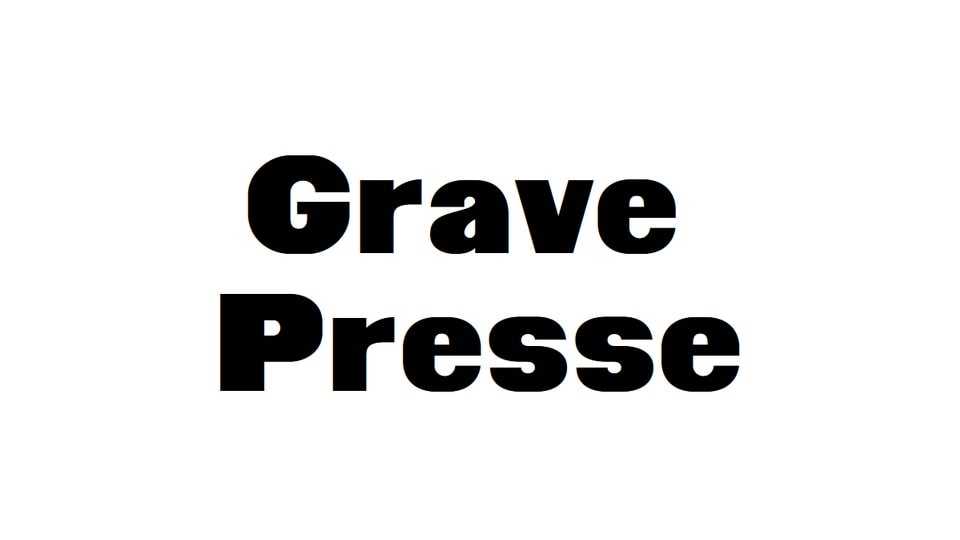
Download Grave Presse font, a typeface inspired by the wooden characters distributed by Georges Morel. It embodies the rustic charm and artisanal quality.
Designer: Loris Espitalier